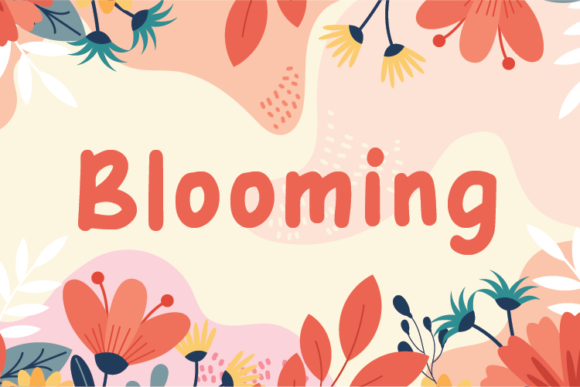
Unleashing the Beauty of Handwritten Typography
Have you ever found yourself scribbling down a quote or a note that sparks inspiration, only to realize that the imperfections of your handwriting are what make it truly special? That’s exactly the magic of handwritten typography, and it’s something that designers and creatives have been striving to capture in digital form for years.
Enter the Blooming Font, a natural handwritten font that stays true to its organic roots without sacrificing readability or versatility. This beautiful font is perfect for adding a touch of personality to quotes, notes, and product designs, making it a valuable addition to any designer’s toolkit.
Blooming Font Key Features
- Unique Characteristics: Blooming Font features a unique, hand-drawn design with intricate details and subtle texture, giving it a distinctive and elegant appearance.
- Language Support: Blooming Font supports a wide range of languages, including Latin, Cyrillic, and Greek alphabets, making it a versatile choice for international projects.
- Customization Options: The font includes a range of stylistic sets and ligatures, allowing users to customize the look and feel of their text to suit their specific needs.
Blooming Font Review
Overall, I have mixed feelings about the Blooming Font. While it has some great qualities, it also has some limitations that make it less versatile than I’d like.
- The Blooming Font is perfect for spring and summer-themed designs, with its bright and colorful blooms.
- The font is highly customizable, with a range of colors and styles to choose from.
- The font is relatively easy to read, even in larger sizes.
- The Blooming Font can be overwhelming in smaller sizes or in large blocks of text.
- The font may not be the best choice for formal or professional designs, as it can come across as playful and immature.
- The font has limited support for non-Latin scripts, which can be a limitation for global designs.
The Blooming Font is a fun and playful font that’s perfect for spring and summer-themed designs. However, its limitations make it less versatile than I’d like. If you’re looking for a font that’s perfect for a specific niche, the Blooming Font may be a great choice. But if you’re looking for a more general-purpose font, you may want to consider other options.